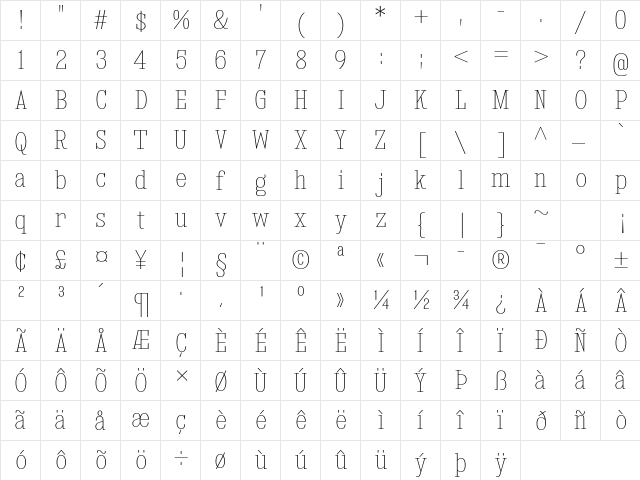
Kingsbridge Condensed UltraLight
Design Context for Kingsbridge Typeface
Kingsbridge is a composed and adaptable typeface that performs quietly and consistently across a wide range of design contexts. The delicate stroke weight brings airiness and refinement to layouts. Its narrow stance lets it pack a punch even in space-constrained designs.
Pro Tip: Use Kingsbridge in both headline and body roles to test its range before committing to a single application.